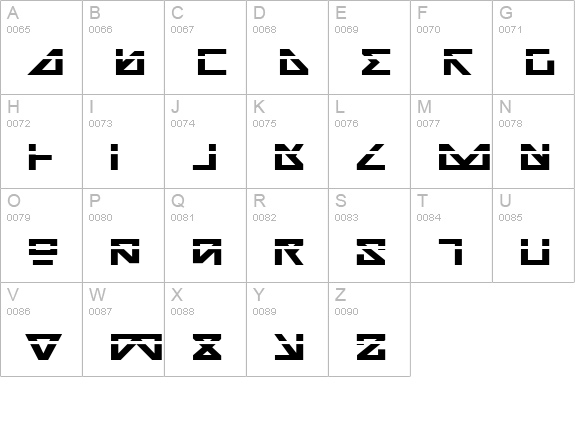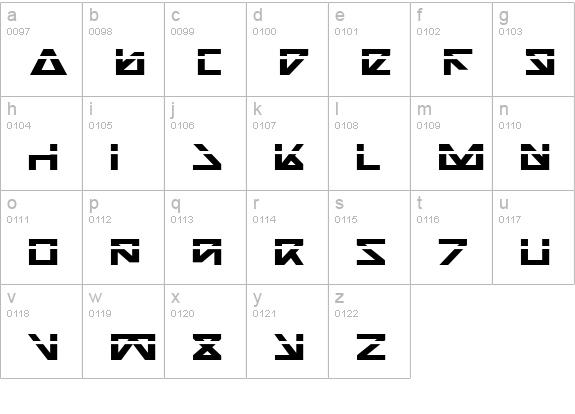
Nick Turbo Bold ExpLaser is a strong, high-contrast variant in the Nick typeface family \xE2\x80\x94 well suited to headlines, attention-grabbing titles, and strong calls-to-action.
Introducing the bold and dynamic Nick Turbo Bold ExpLaser font! With its futuristic style and sharp edges, this font is perfect for making a strong statement in your designs. The sleek lines and high-energy feel of this font make it ideal for projects that require a modern and eye-catching touch. And the best part? Nick Turbo Bold ExpLaser font is completely free to download at FontsMarket.com! Whether you're working on a branding project, poster design, or website, this font will add a powerful and edgy element to your work. Don't miss out on this fantastic opportunity to enhance your designs with the striking Nick Turbo Bold ExpLaser font - get it now for free at FontsMarket.com!